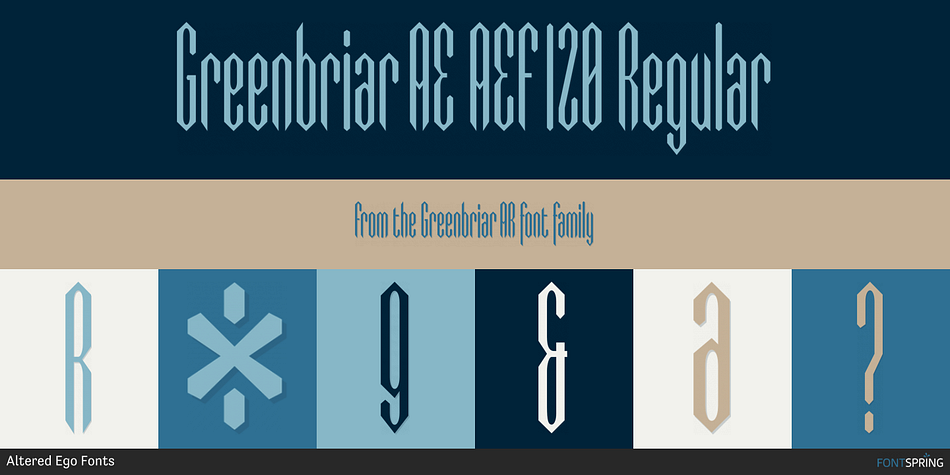
Greenbriar AE AEF 120 Regular
Designed by Brian Sooy, Greenbriar AE is a blackletter font family. This typeface has twelve styles and was published by Altered Ego Fonts.
Greenbriar AE from Altered Ego Fonts is a multi-weight and width font with its roots in blackletter and the combs of a beehive.
Greenbriar AE bears resemblance to historic blackletter fonts, crisply drawn and creating a hypnotic rhythm through the interplay of stroke and counter, weight and width.
The Greenbriar numbering scheme is based on the weight and width axes of multiple masters from which the instances are generated. The first number in any of the series (1 through 5) relates to the width. The second two numbers (20 through 80, in 20-unit increments) relates to the weight within the width series.
Mix and match the series for a hypnotic typographic extravaganza!